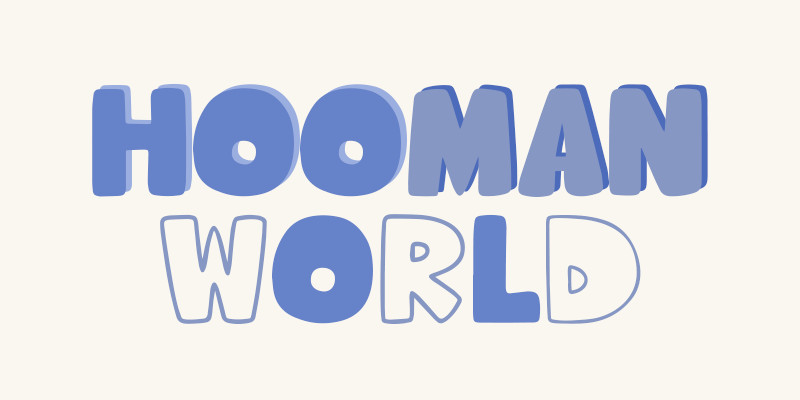
Little Pet Display Font
Introducing New Fonts, A wonderful collection for your various special projects. Little Pet cute font for pet shop, animals store, animal care.